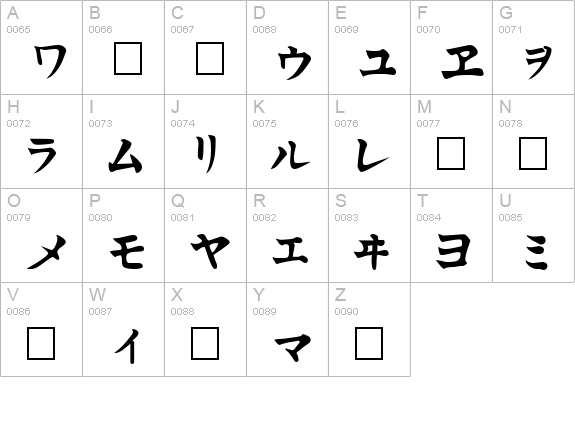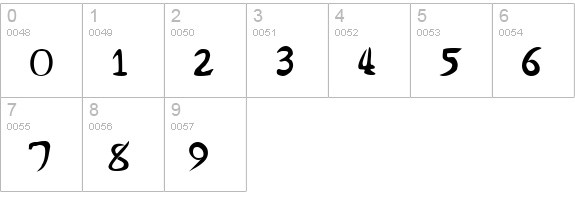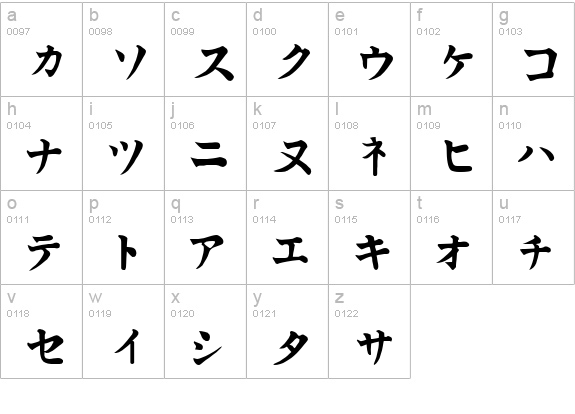
Kata Regular is the standard, neutral variant in the Kata typeface family \xE2\x80\x94 well suited to general body text, paragraphs, and standard typographic work.
Kata Regular font is a modern and versatile typeface that exudes elegance and professionalism. Its clean and crisp letterforms make it perfect for a wide range of design projects, from branding and advertising to web design and print materials. The Kata Regular font features a balanced combination of straight lines and gentle curves, resulting in a harmonious and pleasing aesthetic. Its readability is exceptional, ensuring that your message is conveyed with clarity and impact. One of the most appealing aspects of the Kata Regular font is that it is freely available to download at FontsMarket.com. This means that you can use this high-quality typeface in your projects without any cost. Whether you are a designer on a tight budget or simply looking for a stylish and reliable font, Kata Regular is the perfect choice. With its versatility and professional appeal, Kata Regular is suitable for a wide range of design applications. Use it for logos, headlines, body text, or any other typographic element you can think of. Its timeless design ensures that it will remain relevant and visually appealing for years to come. Download the Kata Regular font for free at FontsMarket.com and elevate your designs with its elegance and versatility. Whether you are working on personal or commercial projects, this font will undoubtedly make a lasting impression. Don't miss out on this opportunity to enhance your typography collection with a high-quality, free font like Kata Regular.